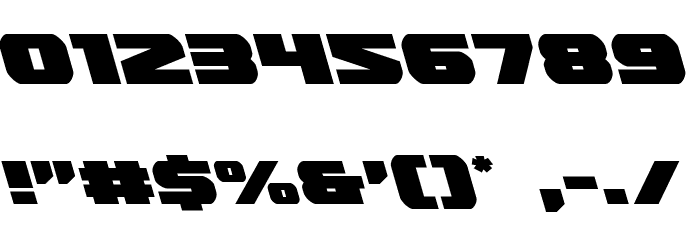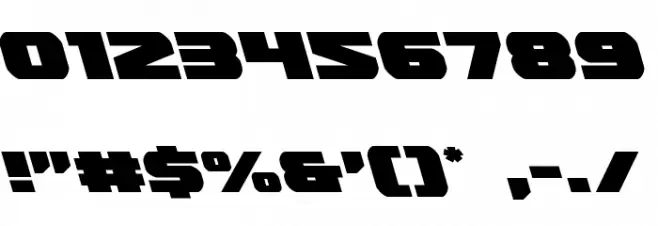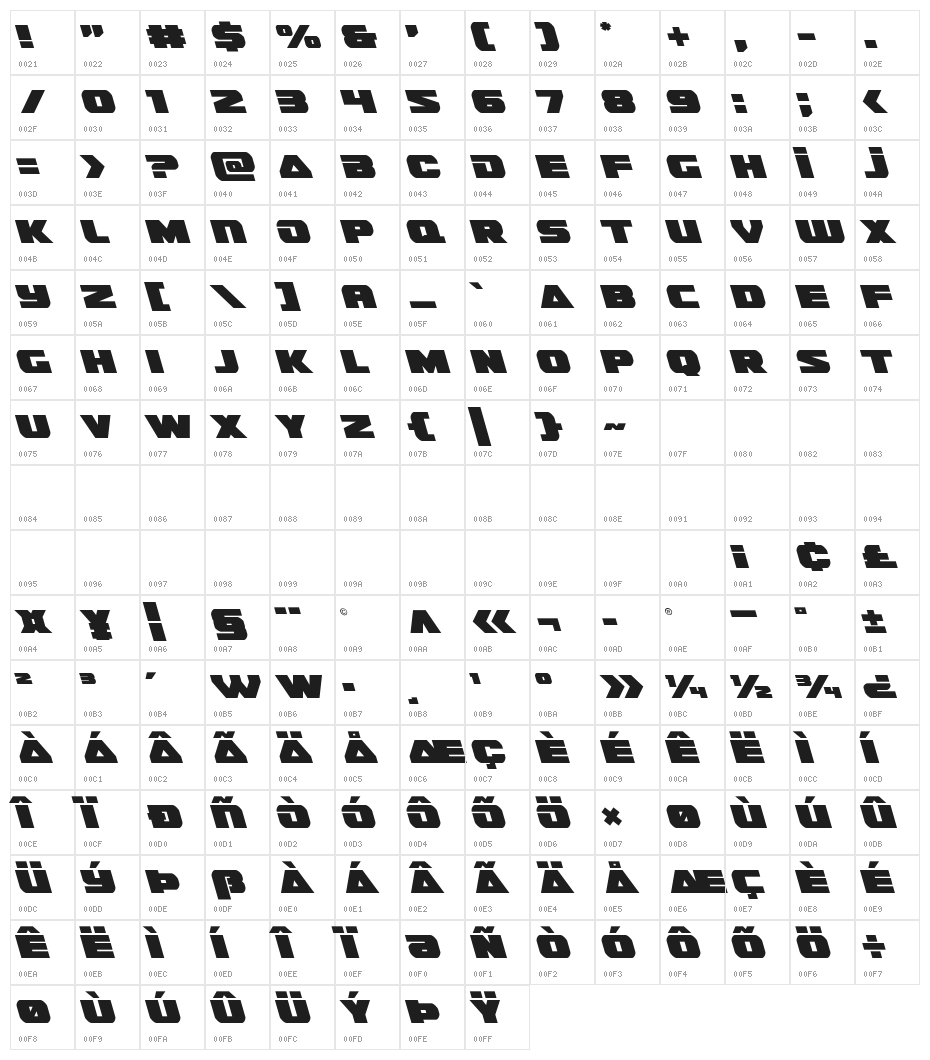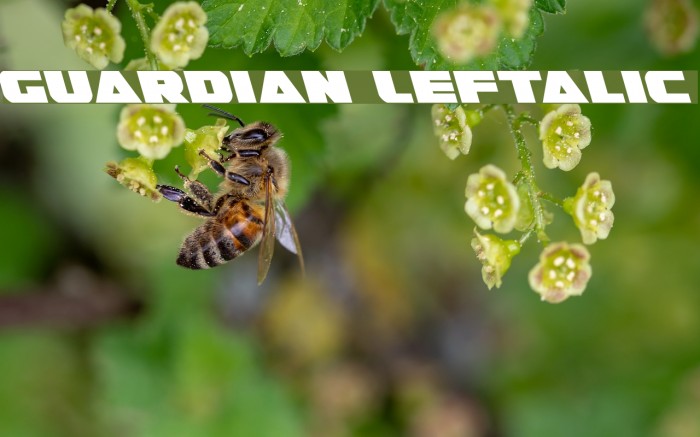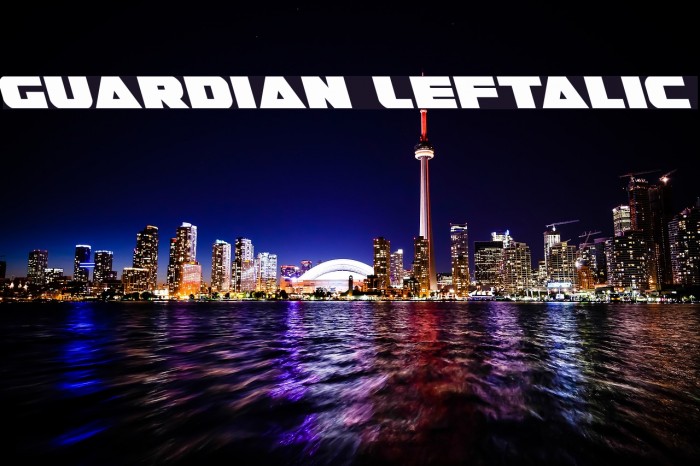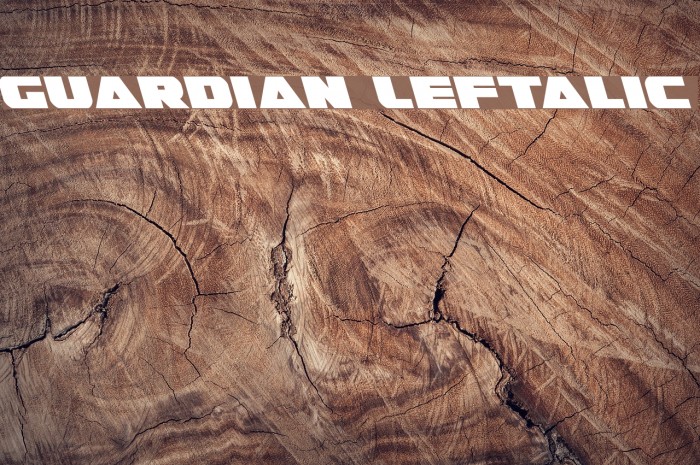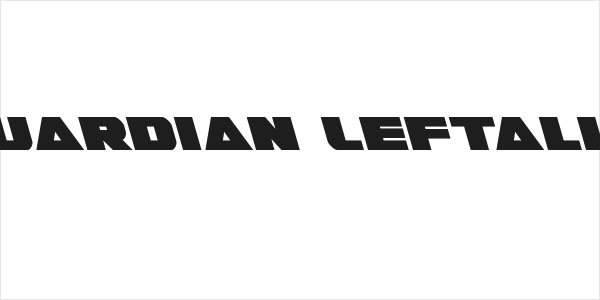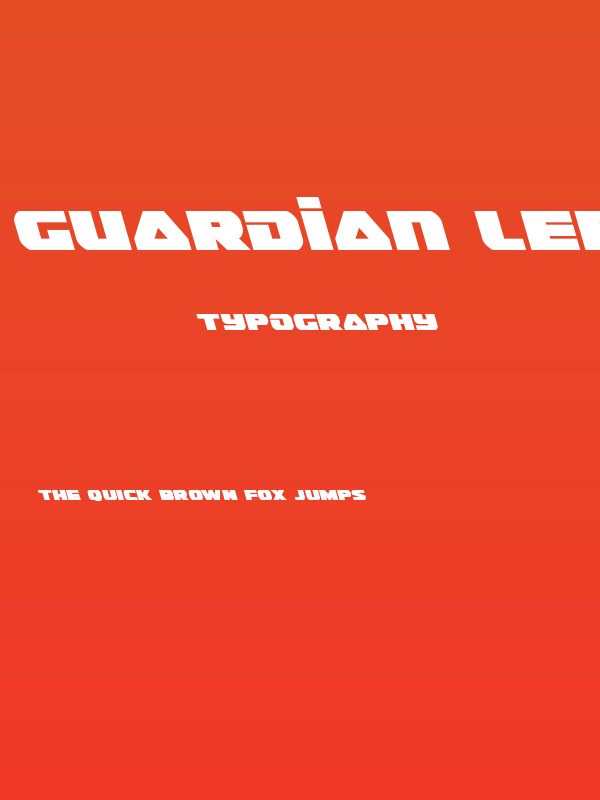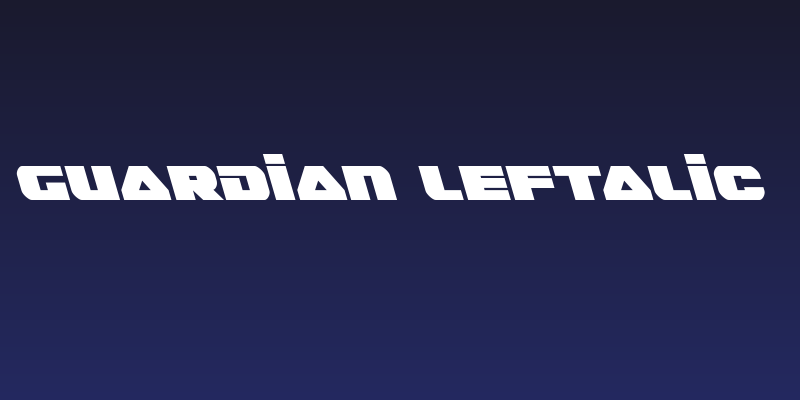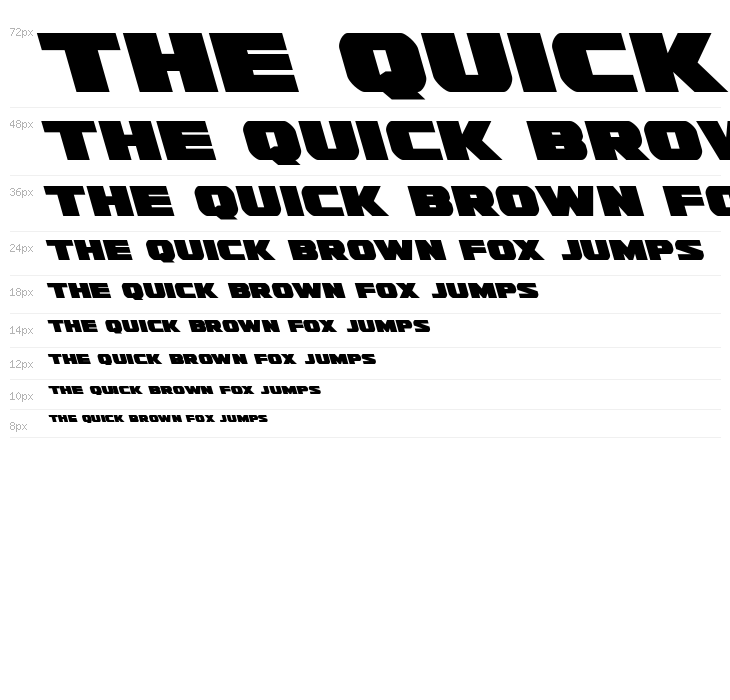
Guardian Leftalic Font
Guardian Leftalic Description
This bold and dynamic font features a strong, angular design with a distinct slant to the left, giving it a sense of motion and urgency. The characters are wide and blocky, with sharp edges and a futuristic aesthetic. The uppercase and lowercase letters maintain a consistent style, while the numbers and special characters complement the overall design. Its bold presence makes it suitable for attention-grabbing headlines and impactful designs.
| Proposed Projects | Ideal for sports branding, video game titles, posters, and any project requiring a bold, modern look. |